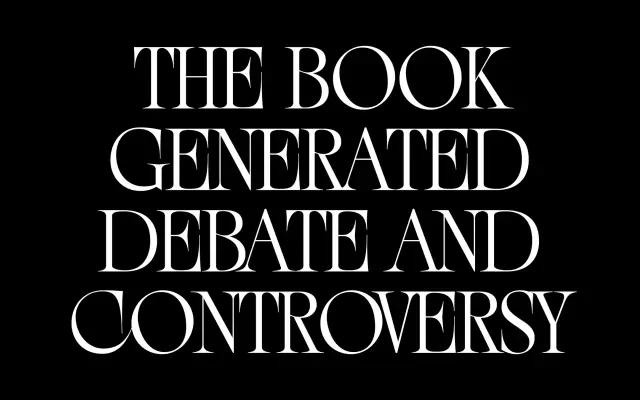
New Eddy
OTT Foundry · Eliott Grunewald
A condensed titling serif conceived for large-scale projection during a dance performance, built around extreme stroke contrast and exaggerated serifs.
Designed by Eliott Grunewald, New Eddy was originally commissioned to appear on a giant screen during a live performance, which drove its priority of legibility at scale alongside maximum contrast. Long tapering strokes and high-waisted capitals push toward caricature without breaking readability, and the mix of wide round letters with narrower upright ones creates a distinctive typographic rhythm. Certain capitals, notably B, R, P and E, carry an art deco construction that gives the face a period quality at odds with its contemporary application.
A titling serif with pronounced vertical contrast, exaggerated serifs and condensed proportions, designed for large-scale display use. Art deco influences appear in specific letterforms such as B, R, P and E.